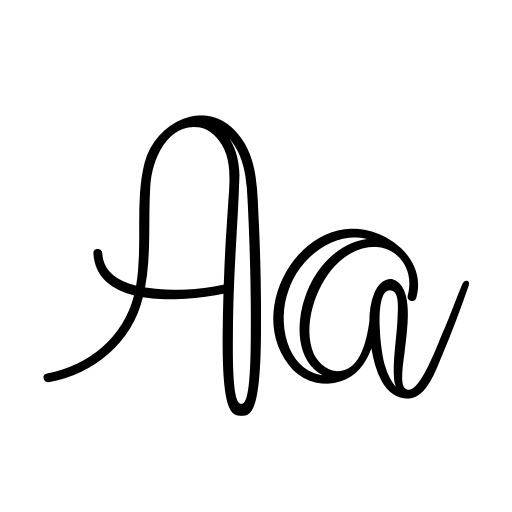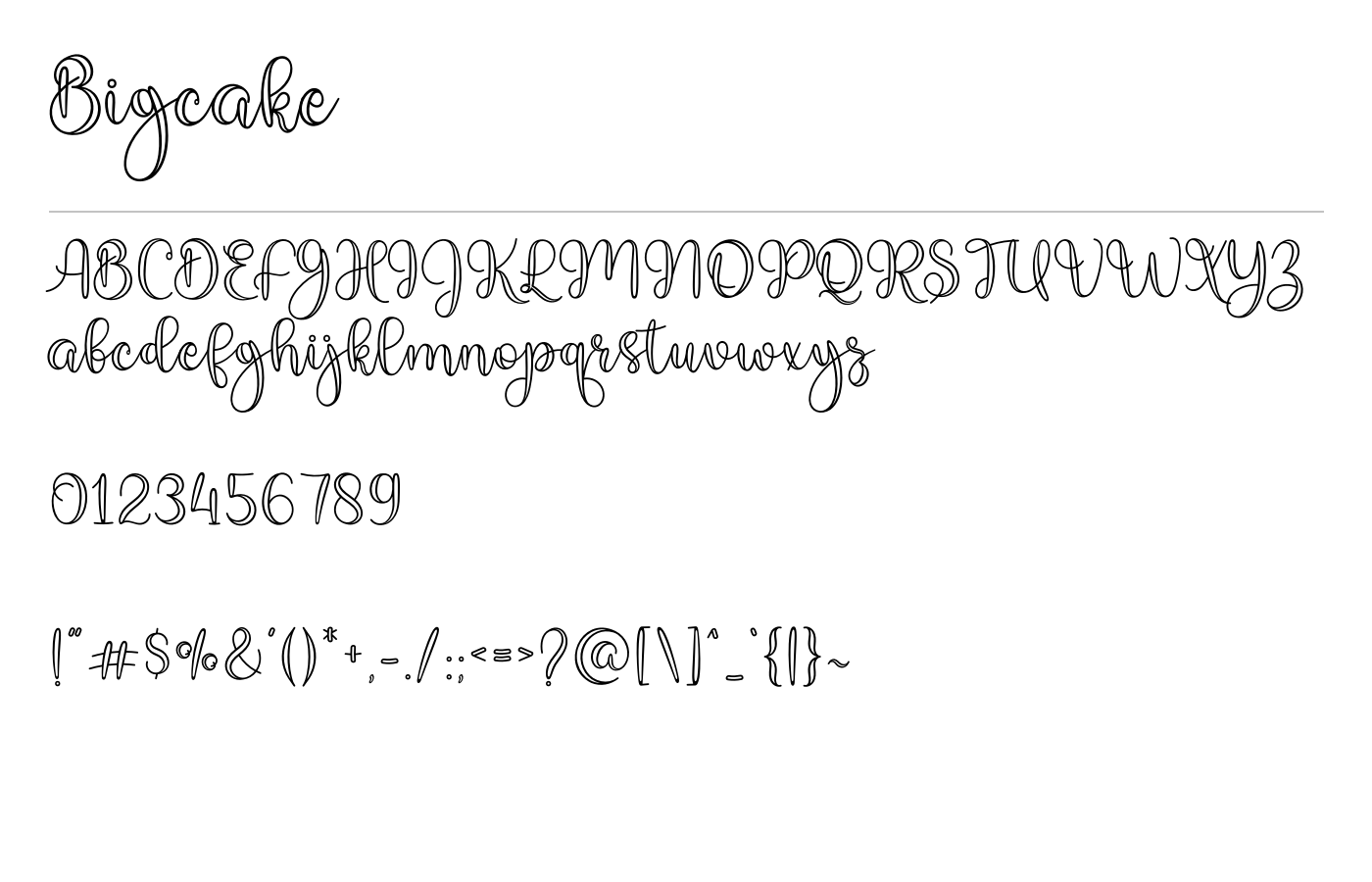
Bigcake Font is a whimsical script typeface with elegant, looping strokes and a light, airy feel. Its thin lines and playful flourishes make it perfect for creative and decorative uses, such as invitations, branding for bakeries or boutiques, and feminine packaging. This font’s charming, hand-drawn style adds a friendly yet sophisticated touch to any design.
Bigcake Font
About Bigcake Font
| Font family | Bigcake Font |
| Designer | Ainur Rofiq |